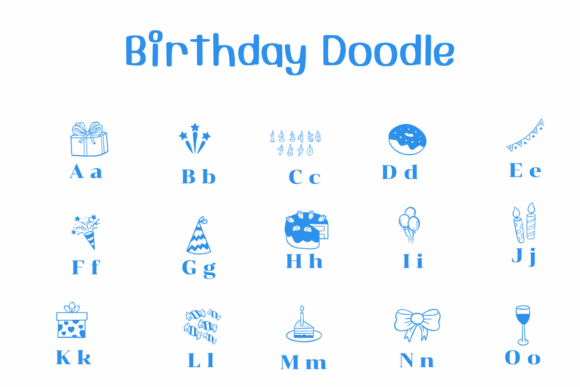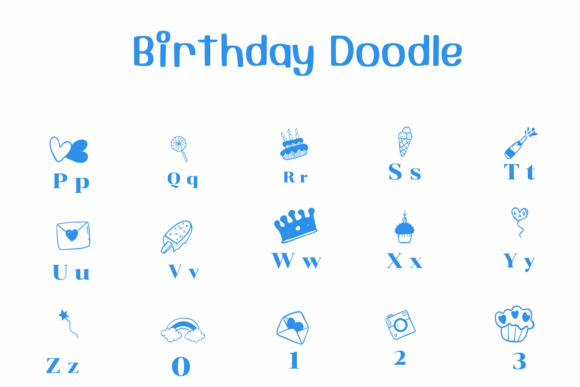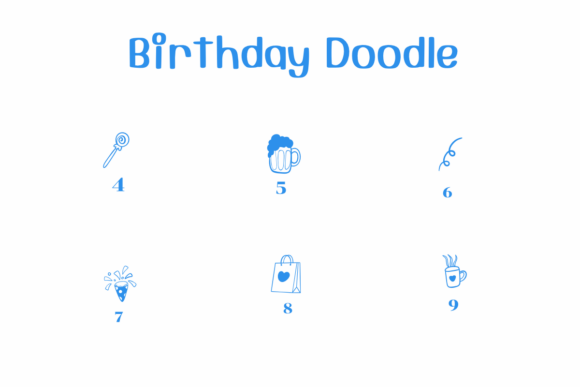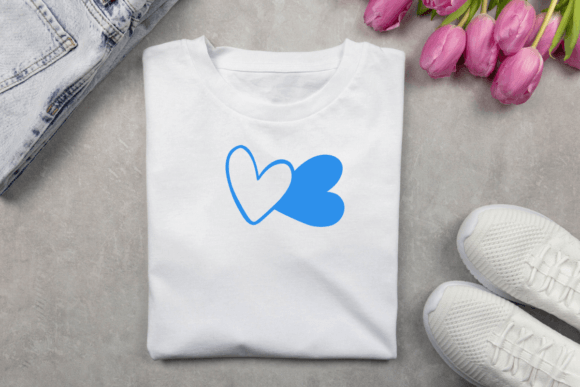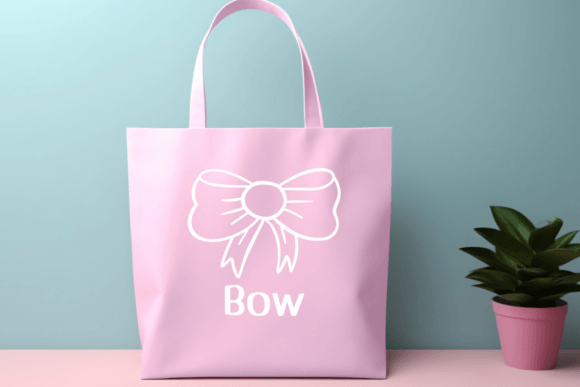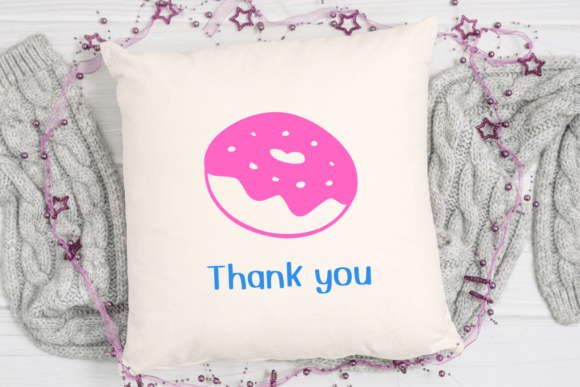
Birthday Doodle Font: Add a Playful Touch to Your Celebrations
Are you looking for a fun and creative way to add a personal touch to your birthday celebrations? Look no further than the Birthday Doodle Dingbats Font! This lively and cheerful set of birthday-themed icons is perfect for designers, crafters, and anyone looking to add a playful touch to their creative projects.
What is Birthday Doodle Dingbats Font?
Birthday Doodle Dingbats Font is a unique and versatile dingbat font that features a wide range of birthday-themed icons, including party hats, balloons, cakes, candles, gifts, and more. These playful doodles are designed to add a fun and festive touch to your designs, making them perfect for birthday invitations, greeting cards, event decorations, and scrapbook pages.
Key Features of Birthday Doodle Dingbats Font
- Wide range of icons: The Birthday Doodle Dingbats Font features a vast collection of birthday-themed icons, including party hats, balloons, cakes, candles, gifts, and more.
- Versatile: The Birthday Doodle Dingbats Font can be used for a wide range of creative projects, including birthday invitations, greeting cards, event decorations, and scrapbook pages.
- Playful and fun: These doodles are designed to add a playful and fun touch to your designs, making them perfect for birthday celebrations.
Uses for Birthday Doodle Dingbats Font
The Birthday Doodle Dingbats Font is perfect for a wide range of creative projects, including:
- Birthday invitations: Add a playful touch to your birthday invitations with these fun and festive doodles.
- Greeting cards: Create personalized greeting cards for birthdays, anniversaries, and other celebrations.
- Event decorations: Use these doodles to create fun and festive decorations for birthday parties and other celebrations.
- Scrapbook pages: Add a personal touch to your scrapbook pages with these playful doodles.
Tips for Using Birthday Doodle Dingbats Font
Here are a few tips for using the Birthday Doodle Dingbats Font:
- Experiment with different colors: Try using different colors to add a pop of color to your designs.
- Mix and match icons: Combine different icons to create a unique and personalized design.
- Use with other fonts: Pair the Birthday Doodle Dingbats Font with other fonts to create a unique and eye-catching design.
- What is a dingbat font? A dingbat font is a type of font that features icons and symbols rather than letters and numbers.